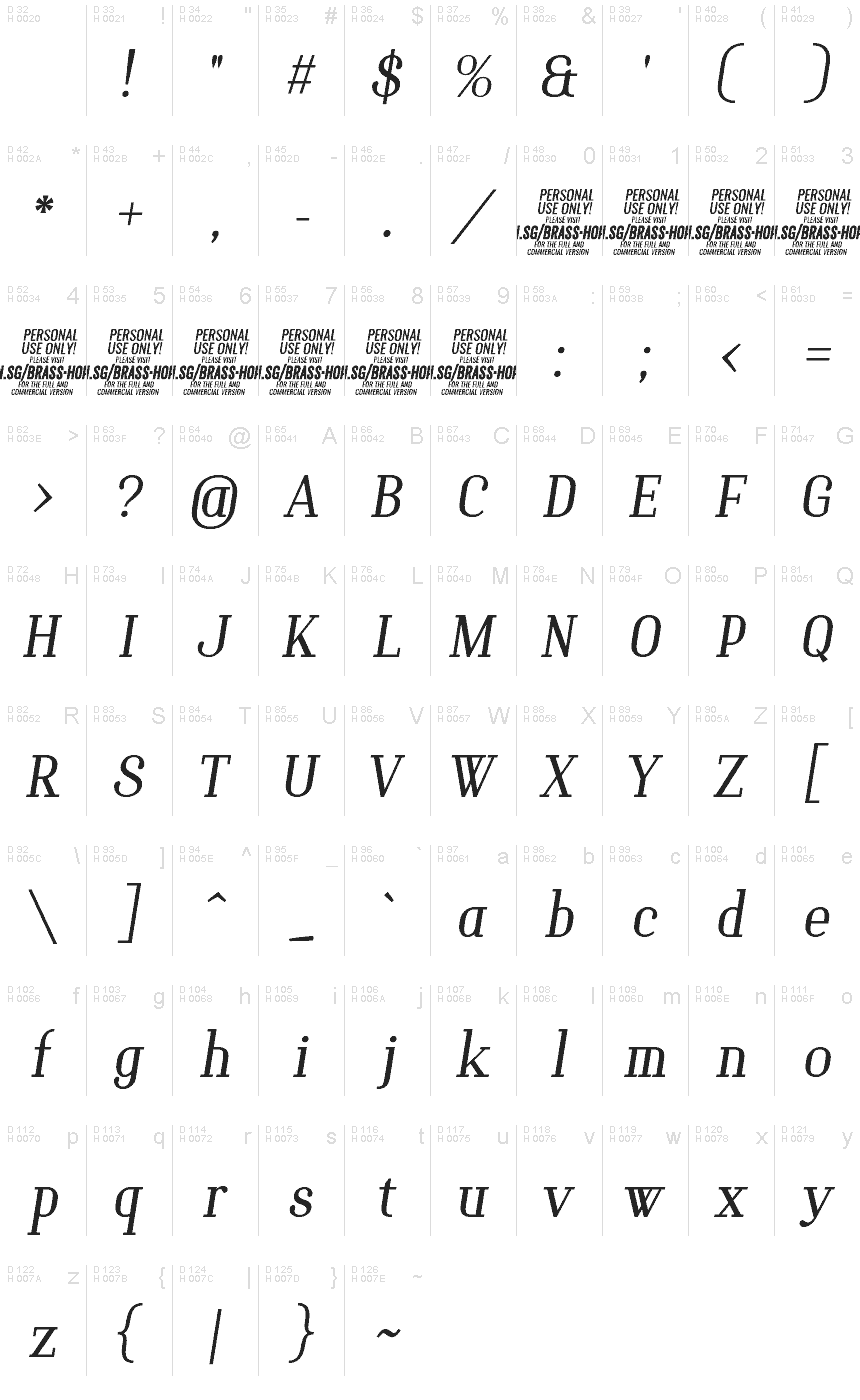
Brass Hopper Body PERSONAL Thin Italic
Brass Hopper Body Thin Italic font designed by Mans Greback is a timeless and elegant serif font which exudes sophistication and classic chic. Inspired by a beautiful combination of traditional influences, this refined typeface is professional in its overall appearance while still feeling welcoming and all-inclusive. This new tool gives you more flexibility when using your already existing family.
Achieve impactful headlines or classic short or long text with the combination of thin italic version to be found here. Some use cases include visual identities, branding designs, typography posters, and beautiful printed magazine projects. Also think about fashion headlines, social media posts, greeting cards, wedding invitations etc…
Brass Hopper Body is a serif font that embodies structural design.
As a modern geometrical typeface, Brass Hopper is characterized by its strict shapes and a touch of formality.